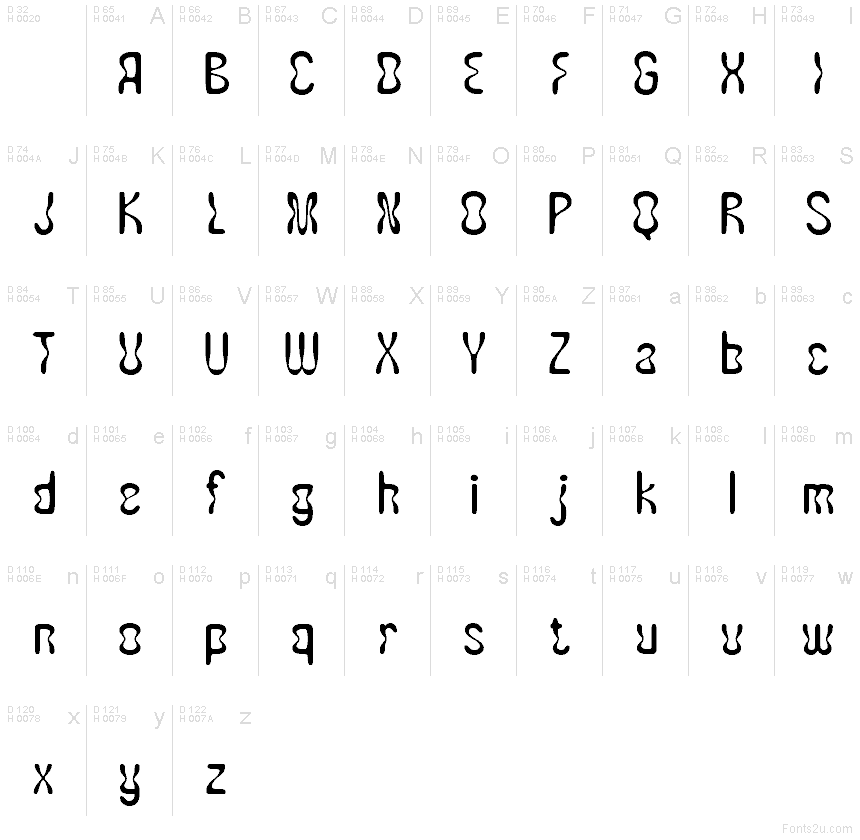
CSGrompyDrawn-Regular Demo
CS Grompy Drawn font by Craft Supply Co. presents a display type style with a groovy attitude. Its condensed width makes for an unusual combination and style which is instantaneously visible. Every letter, whether separate or combined, is purely decorative with its authentic vibe derived from unconventional shapes and organic elements.
A free condensed font, CS Grompy Drawn can be used in signage, flyers, posters, cards, book covers, logotypes or animations. Users can also implement it in music albums (vinyl or CD), social media posts (stories or image formats), magazines and brochures of various types.